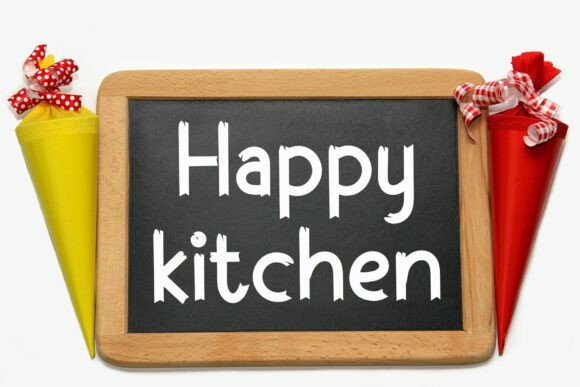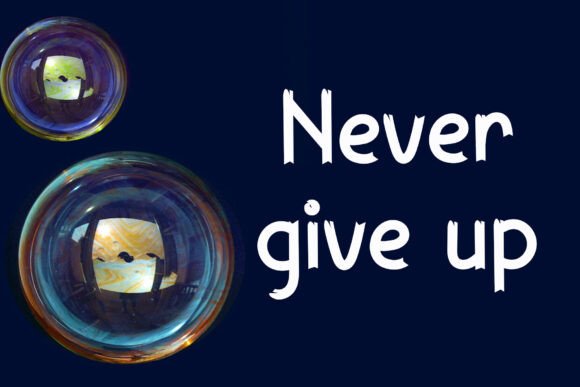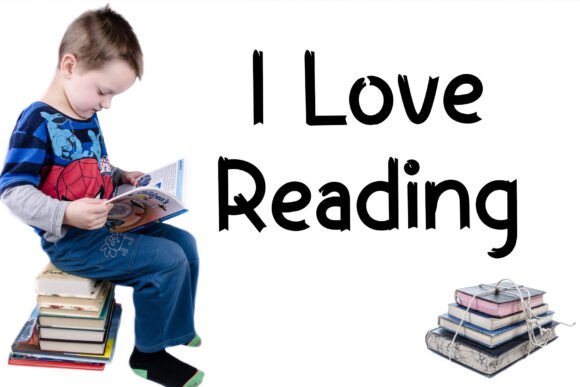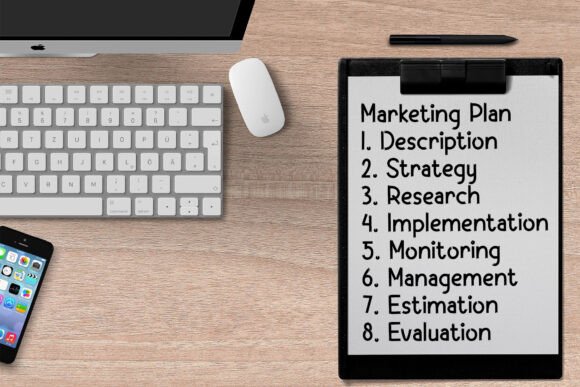
Unlock the Magic of Child Font: Elevate Your Creative Projects
Have you ever stared at a blank page, trying to come up with the perfect design for a special occasion? Maybe it’s a wedding invitation, a birthday card, or a school project that needs a little extra flair. The pressure to create something truly unique can be overwhelming. But what if you had the perfect tool to bring your ideas to life?
Introducing the Child Font, a beautifully crafted font designed to help you add a touch of elegance to your projects. This font is perfect for designers, students, and anyone looking to add a professional touch to their work. With its unique and sophisticated style, the Child Font is the ideal choice for all types of projects, from greeting cards to school assignments. Its accessibility and versatility make it a valuable asset for any creative endeavor.
Key Features of Child Font
- Font Family: Child Font is a sans-serif font family designed to be highly readable and versatile.
- Size: The font family includes a range of weights, from Thin (100) to Bold (900), catering to different design needs.
- Resolution: Optimized for high-resolution displays, ensuring crisp and clear text at various screen sizes.
- Unique Characteristics: Child Font features a unique, childlike feel, making it ideal for children’s books, educational materials, and other projects requiring a friendly tone.
- Language Support: Comprehensive language support, including Latin, Cyrillic, and Greek scripts, making it suitable for multilingual designs.
Designer Review: Child Font
As a designer, I was intrigued by the “Child Font” – a playful, childlike font meant to evoke a sense of innocence and whimsy. Upon closer inspection, I found some aspects that work well, alongside some limitations that held it back.
- Unique Character Set: The font features a wide range of quirky characters, from smiley faces to speech bubbles, that can add a fun touch to any design.
- Expressive: The font’s varied line weights and flourishes give it an expressive, hand-drawn feel that can work well for illustrations or children’s content.
- Easy to Read: Despite its playful nature, the font remains legible, making it a good choice for body text or short paragraphs.
- Limited Font Weight Options: The font’s weight options are somewhat limited, which can make it difficult to use in complex layouts or for titling.
- Not Ideal for Long Text: The font’s playful nature can make it challenging to read large blocks of text, which may be a concern for longer articles or essays.
The “Child Font” is a fun, creative option that can add a unique touch to your designs. While it has some limitations, its expressive nature and wide range of characters make it a great choice for illustrations, children’s content, or short paragraphs.
Child Font Practical Application Guide
The Child font is ideal for:
– Creating a playful and youthful atmosphere.
– Designing children’s educational materials.
– Developing branding for children’s products or services.
– Adding a whimsical touch to website or social media content.
Tips for Getting the Most Out of the Child Font
To get the most out of the Child font, try the following:
– Pair it with bold and playful graphics.
– Use it in combination with other fun and quirky fonts.
– Experiment with different font sizes and colors to create visual interest.
– Consider using it for headings and titles, and a more straightforward font for body text.
Alternatives to “Child Font” for Designers
Playfair Display is an elegant, high-end serif font ideal for luxury brands and upscale designs. It features intricate details and ornate flourishes, making it perfect for titles, headings, and body text in high-end publications, advertisements, and websites.
Compared to Child Font, Playfair Display is more ornate and luxurious, while Child Font is more playful and casual. Use Playfair Display when you want to convey sophistication and elegance.
Q: Are there any technical requirements for using Child Font, such as font size or line height recommendations?
Yes, Child Font is designed to be used at font sizes between 10pt and 24pt, with a recommended line height of 1.2 to 1.5 times the font size. This will help ensure that the font is legible and easy